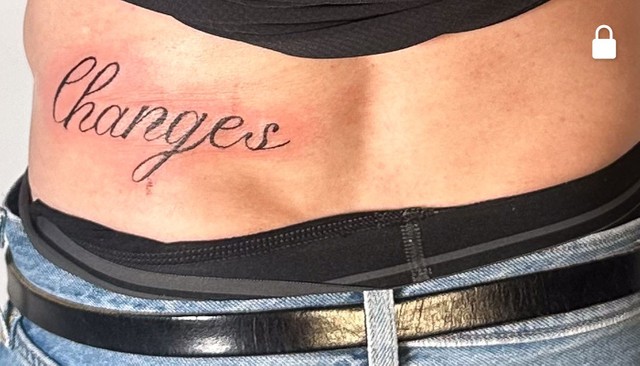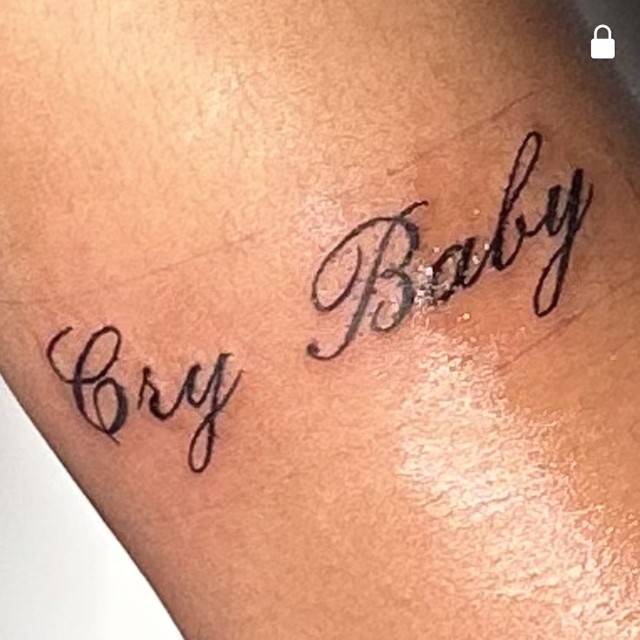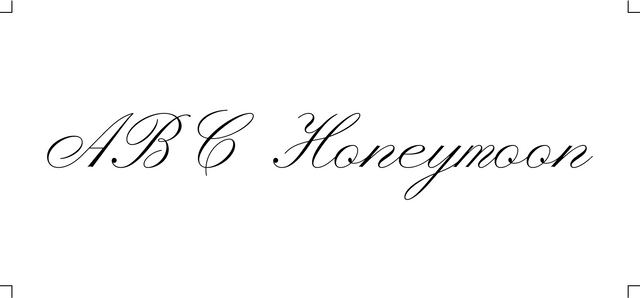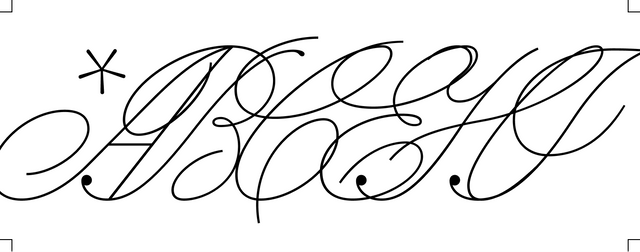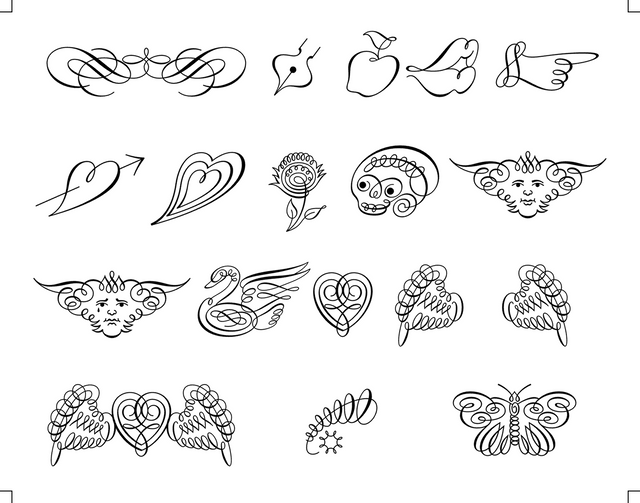
Our friend Ricarda Haehn literally tattooed heartbreak lyrics set in ABC Honeymoon (out today) onto ten bodies, making this the first typeface campaign I can think of that will literally last a few lifetimes </3
I messaged Ricarda to hear about her work as a creative director, photographer, and newborn tattoo artist. You can read our conversation below, if you like.
Hey Ricarda... maybe you can start by telling us a bit about where you grew up?
I grew up in different places—but mostly in a small village where there was nothing going on. I was an internet kid, obviously. I was in love with the forest and the internet.
The forest and the internet. I feel like this describes your aesthetic pretty perfectly.
Yes. I draw a lot of inspiration from the forest. There was one behind our house where I grew up. When I was young I was scared of the forest and the creatures living in it. But I learned to experience the beauty and the magic of it. There is such a beautiful silence in the forest. And the internet… My older brother introduced me to that world—and i never left it.
I heard you went to business school, is that right?
My parents encouraged me to do something safe, so I studied business. I’ve always had a thing for numbers and structure—they inspire me and give me a sense of security. You need to be disciplined to study at a German university, but somehow, I still managed to attend an independent art school at the same time and got into my first styling assistant jobs.
I noticed online that it’s hard to find a single title or role that describes you. When people ask you what your job is, what do you say?
I visualize my dreams and imaginations. Every detail in my work is intentional and everything I do leaves an imprint. I work as a director and creative director. Sometimes I find myself going beyond what I signed up for. When you care about the outcome you do whatever it takes.
Do you feel restricted by the way the industry enforces roles?
I kind of do not want to give these thoughts much room. I’d rather let my work speak.
What are you currently working on?
I’ve signed NDAs so i can’t share much yet. I work with AI a lot. And I’m also working on some personal projects at the moment. I love personal work, it gives me space to reflect, process, and slow things down a little. I am very bored of the fast pace of the industry and social media lately. It creates so much copy pasting.
You also tattoo. What do you like about it?
Tattoos are forever. (At least, most of the time). A brief moment becomes a lasting memory, written on the skin.
Can you tell me about how you’ve recently been working with Honeymoon?
Our idea was to capture heartbreak. A contrast to the dreaminess of the Honeymoon typeface. Love and pain exist so close together, they’re almost indistinguishable at times. Tattooing reflects this beautifully—it’s intimate, permanent, a reminder of both desire and loss.
People shared their heartbreak stories with me and we translated them into tattoos: letterings like “so sad, so sexy”, “changes”, and “cry baby”. The words hold deep personal meaning for each person. A small but permanent echo of their emotions.
Maddy: How do you choose what you listen to while tattooing?
Ricarda: Tattooing is a sacred experience, and the music I choose becomes part of that moment. I’m drawn to ethereal sounds. I love classical music but I also have a huge thing for pop music. It’s all about the energy of the moment. Not only in tattooing – I have a soundtrack for everything I do.